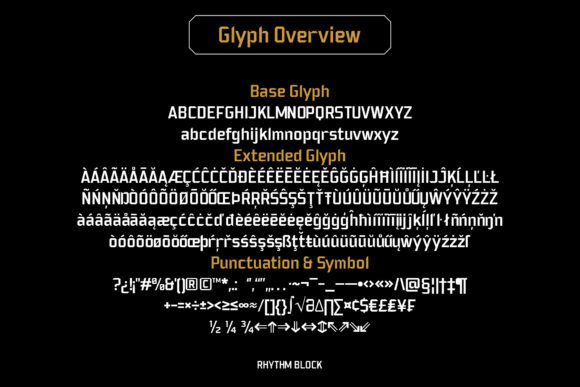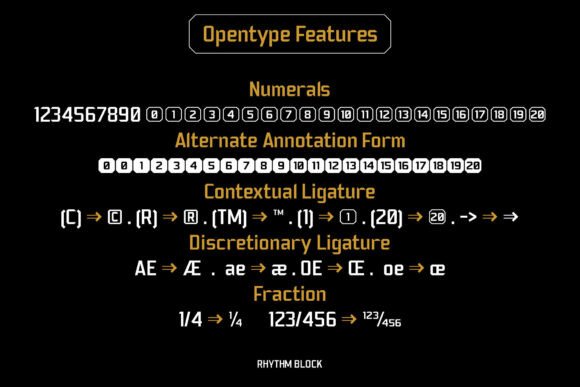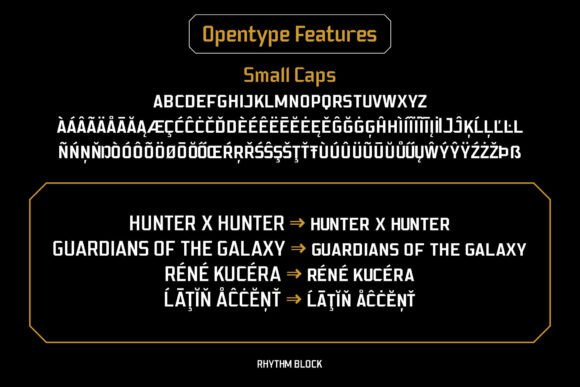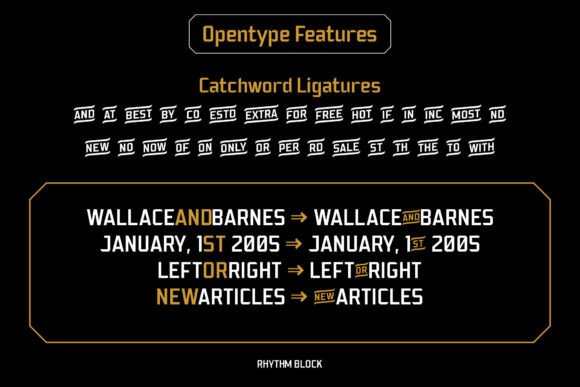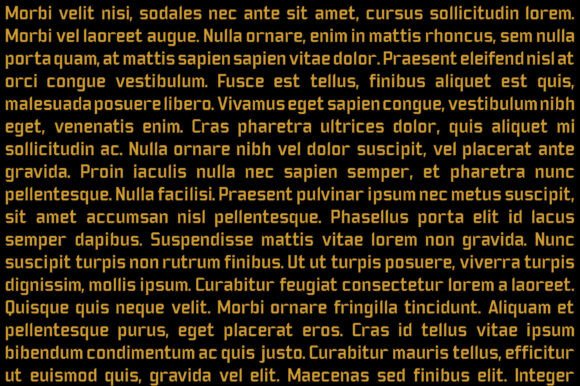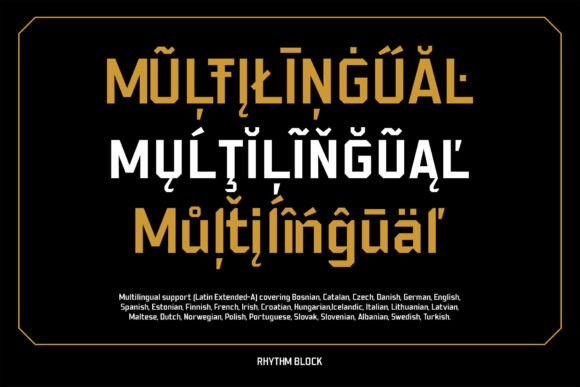
Introduction to Rhythm Block Font
Have you ever been brainstorming a creative project, and suddenly, a spark of inspiration hits you? For designers, those ‘aha’ moments are what make the process so thrilling. One such moment might be the discovery of the perfect font to elevate your design. That’s exactly what we’re about to share with you – the Rhythm Block Font, a vintage-style display font that’s sure to give your next project a strong, classic look.
Imagine a font that not only adds a touch of nostalgia but also stands out on any design surface. With its bold, blocky letters and thick, square shapes, the Rhythm Block Font is the perfect addition to your design arsenal. Whether you’re working on a poster, logo, or headline, this font is sure to capture attention and make your design shine.
Key Features of Rhythm Block Font
- High-quality, unique font design perfect for creative projects
- Includes a range of glyphs and characters, ideal for designers and artists working on complex design projects
- Designed with a modern aesthetic, suitable for use in a variety of contexts, from digital to print media
Honest Review: Rhythm Block Font
I recently stumbled upon the Rhythm Block Font, and I must say it’s a fantastic addition to any designer’s toolkit. This font is perfect for creative projects that require a unique and eye-catching design element.
- ✨ High-quality design: The Rhythm Block Font boasts crisp and clean lines, making it ideal for both digital and print designs.
- ✨ Versatile: Rhythm Block Font can be used for a wide range of design projects, from branding to packaging and everything in between.
- ⚠️ Limited language support: The Rhythm Block Font may not be suitable for projects that require a wide range of language support.
- ⚠️ Not ideal for small text: Due to its unique design, this font may not be the best choice for small text or fine details.
Overall, I’m impressed with the Rhythm Block Font’s high quality and versatility. It’s an excellent addition to any designer’s toolkit, and I highly recommend it for any creative project that requires a unique design element.
Common Use Cases for Rhythm Block Font
The Rhythm Block Font is ideal for creating modern and sleek designs, such as logos, business cards, and social media graphics. It’s also great for adding a professional touch to presentations and reports.